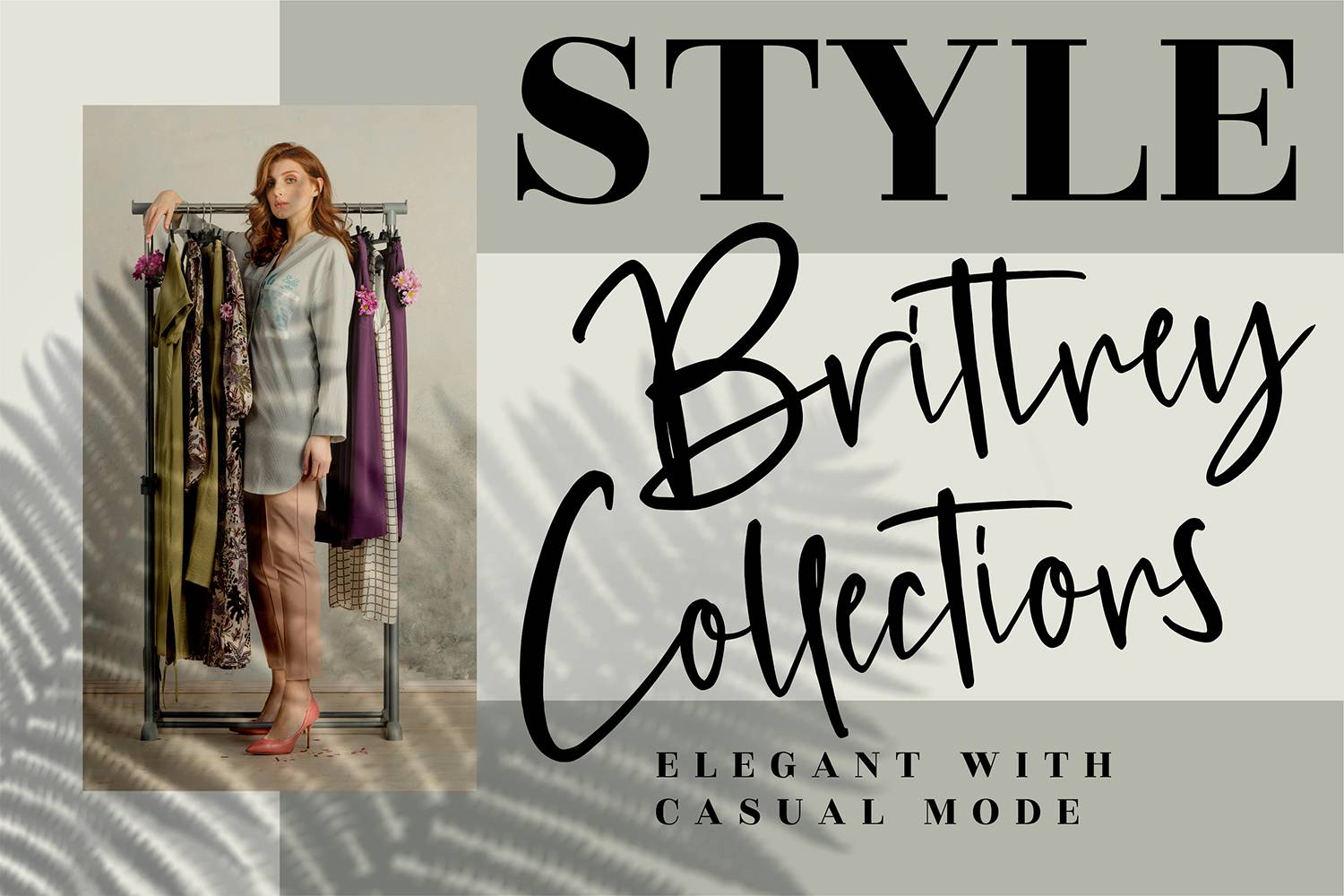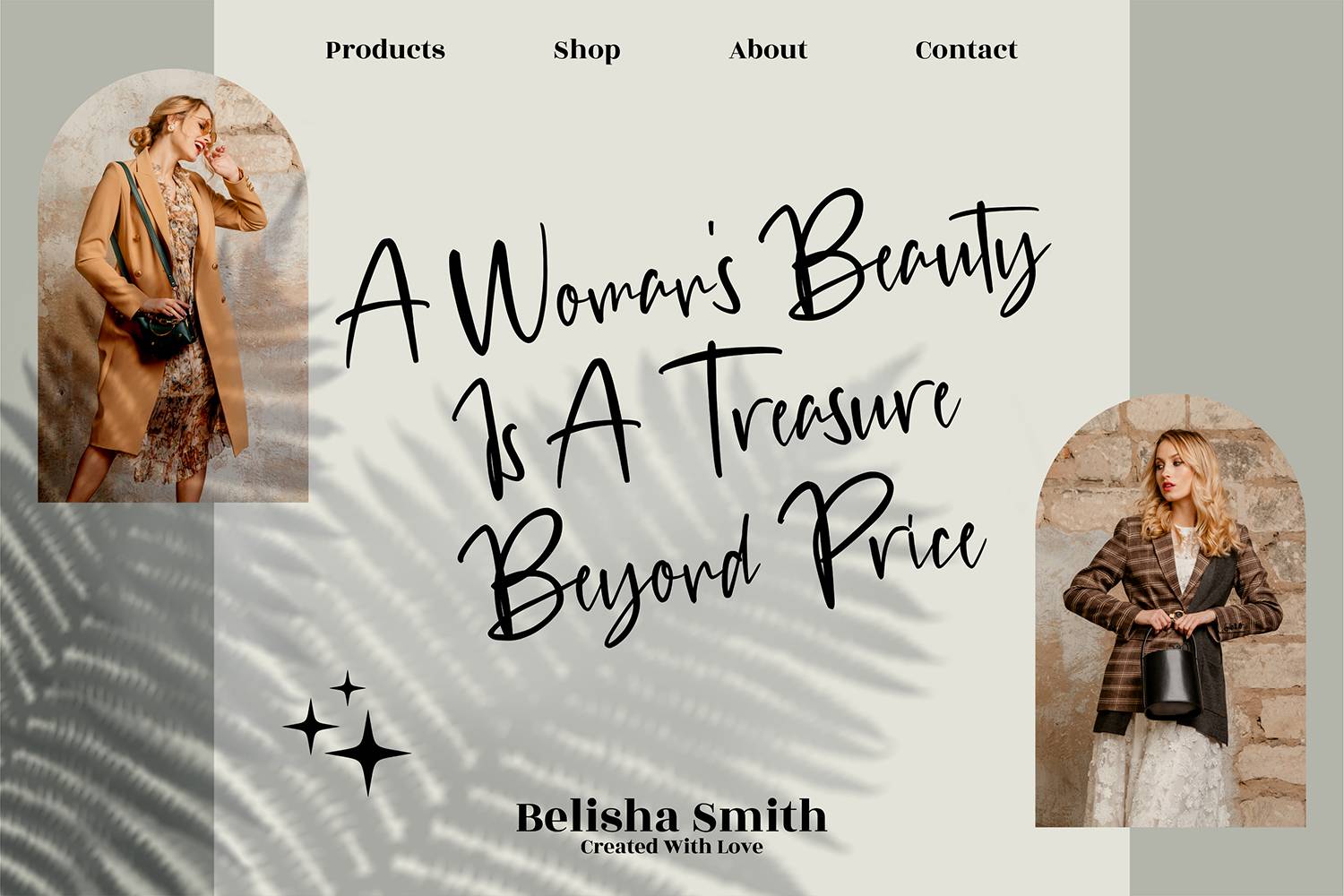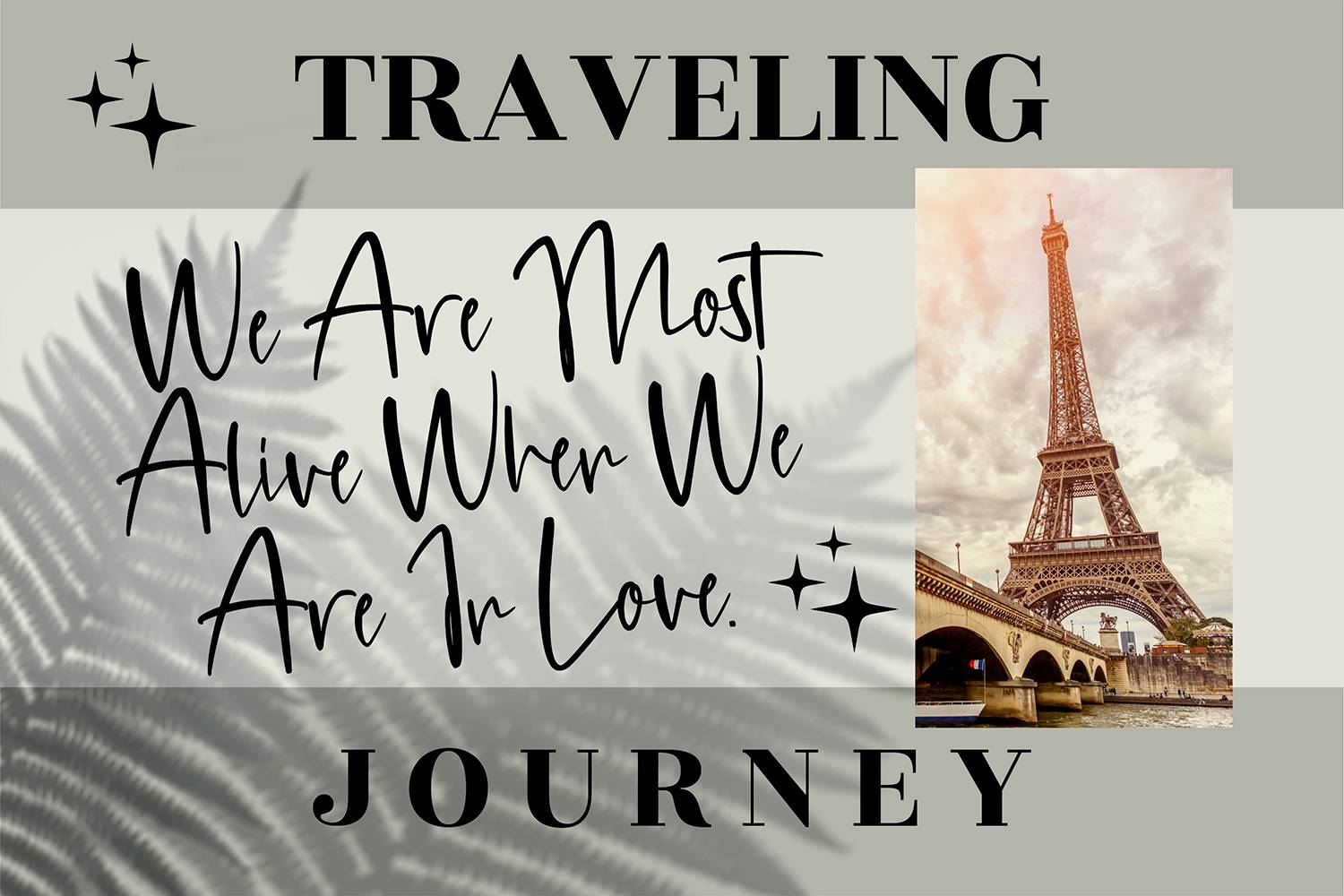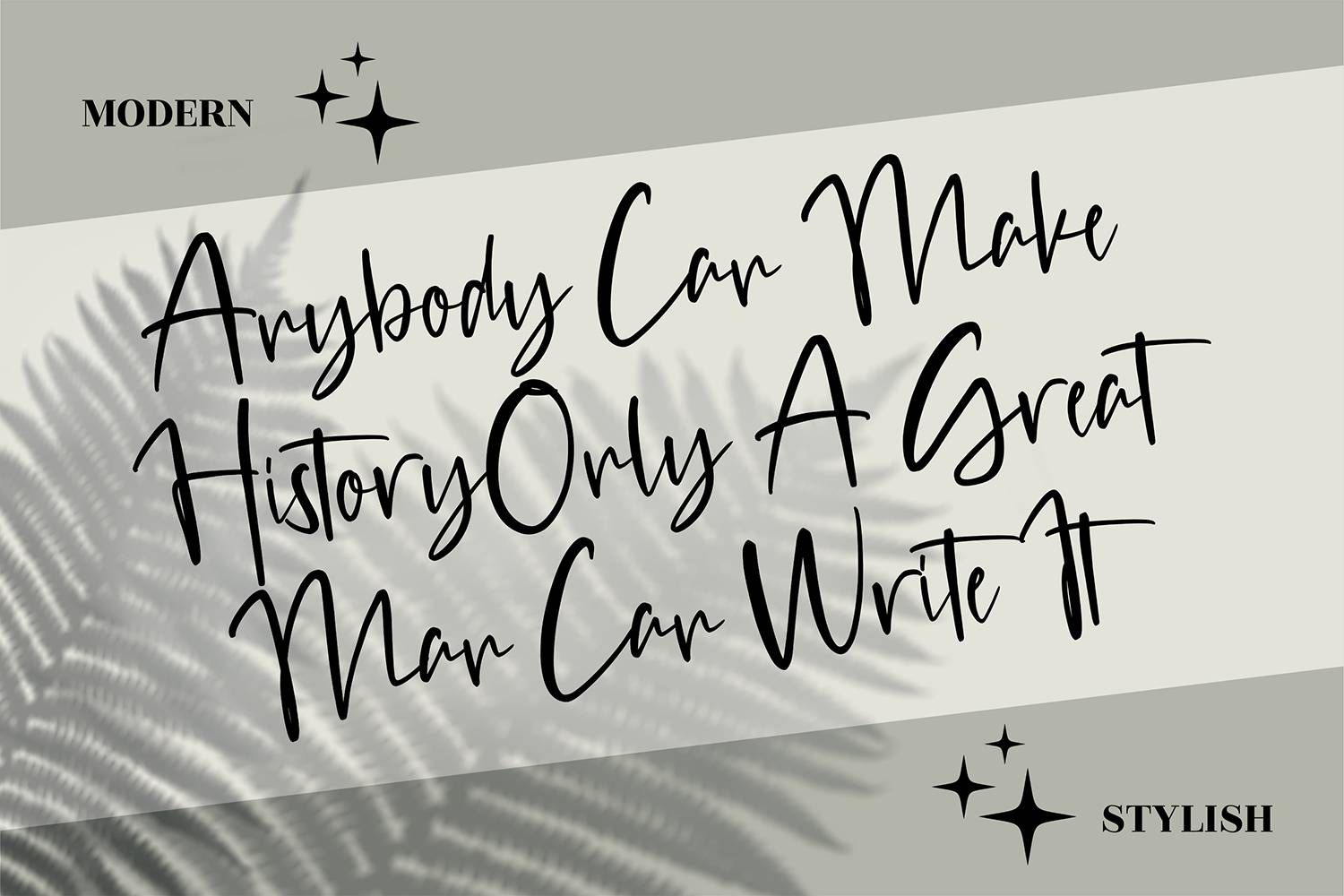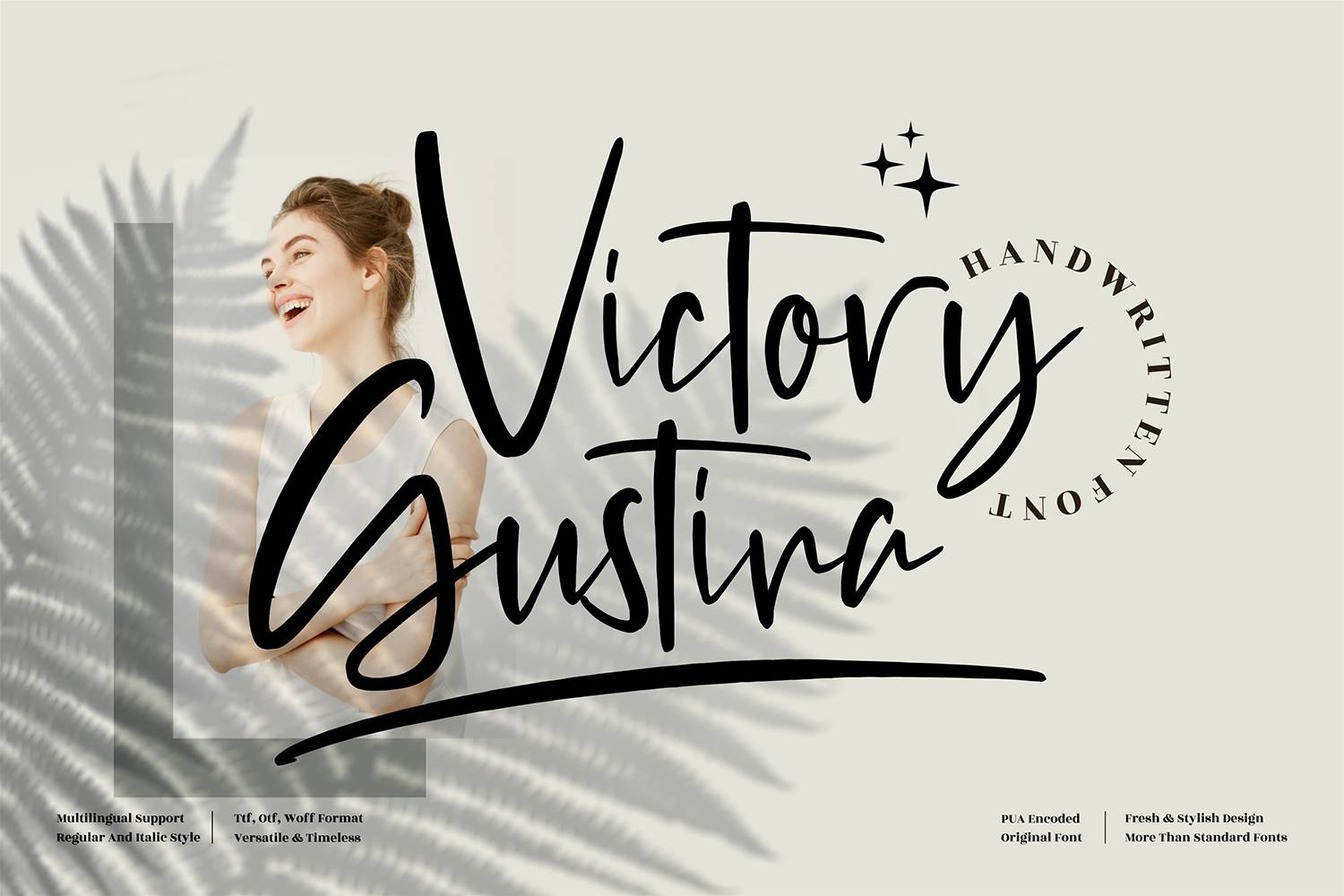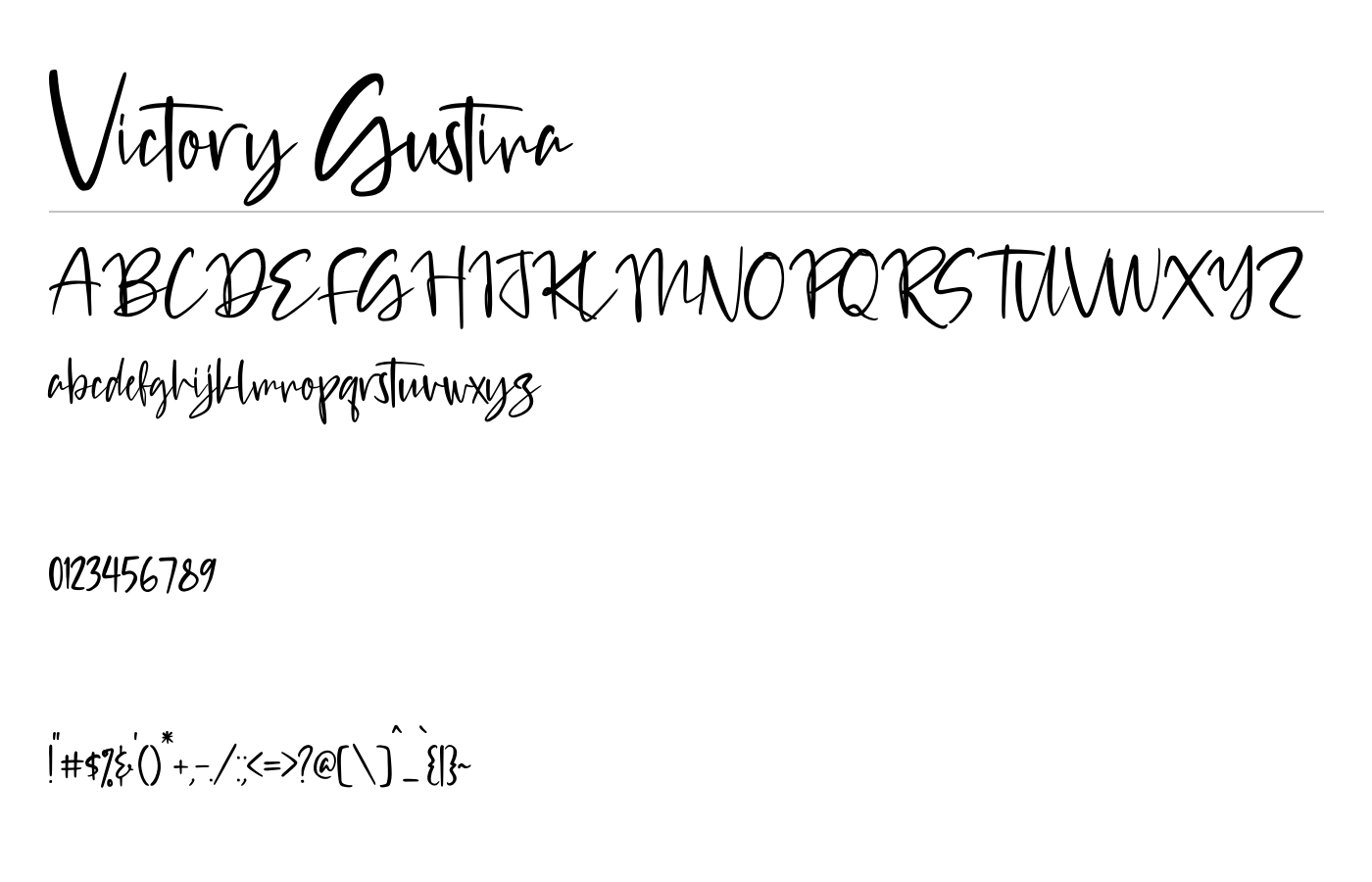
Victory Gustina is a lively handwritten script font with a casual, modern feel. Its tall, narrow letterforms and irregular strokes create a whimsical and personal touch, perfect for adding a friendly and creative vibe to designs. This font works well for invitations, branding, social media, and other projects where a stylish yet approachable hand-drawn look is desired.
Victory Gustina Font
About Victory Gustina Font